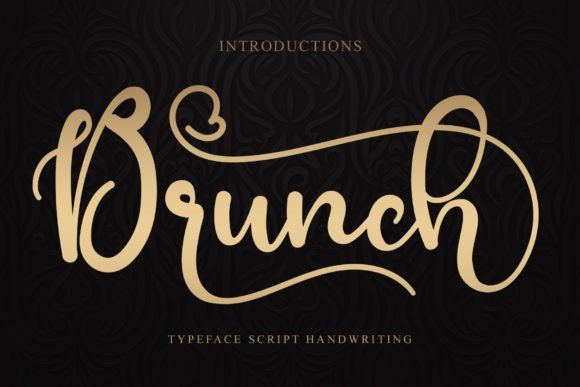
Introducing Brunch Font - A Culinary Masterpiece for Your Visual Delights
In the realm of design, fonts hold the power to transform ordinary words into captivating expressions of art. Among this typographic tapestry, Brunch Font emerges as a sweet and cursive handwritten masterpiece, ready to add a dash of joy and romance to your creative endeavors.
Visualize your designs adorned with the graceful strokes of Brunch Font, a creation by the talented 21Design. Each letter, meticulously crafted with a gentle touch, dances upon the page, exuding an aura of timeless elegance. Whether you're a seasoned designer or just starting your creative journey, Brunch Font is the perfect ingredient to elevate your projects.
Step into a world where words become works of art, where your designs blossom with a touch of whimsy and charm. Brunch Font's versatility knows no bounds, seamlessly adapting to a myriad of design concepts. From branding and logos to wedding invitations and marketing campaigns, this font adds a touch of sophistication that captivates and enchants.
With Brunch Font as your creative companion, you'll discover endless possibilities to showcase your unique style. Create eye-catching logos that leave a lasting impression, design wedding invitations that evoke a sense of romance and elegance, or craft marketing materials that radiate charm and personality.
Brunch Font is more than just a collection of letters; it's an open invitation to embark on a creative adventure. Its gentle curves and playful strokes inspire you to think outside the box, to explore new design horizons, and to create visuals that resonate with your audience.
So, if you seek a font that sparks creativity, adds a touch of magic to your designs, and leaves a lasting impression, then Brunch Font is your perfect match. Dive into the world of Brunch Font today and let your imagination run wild!